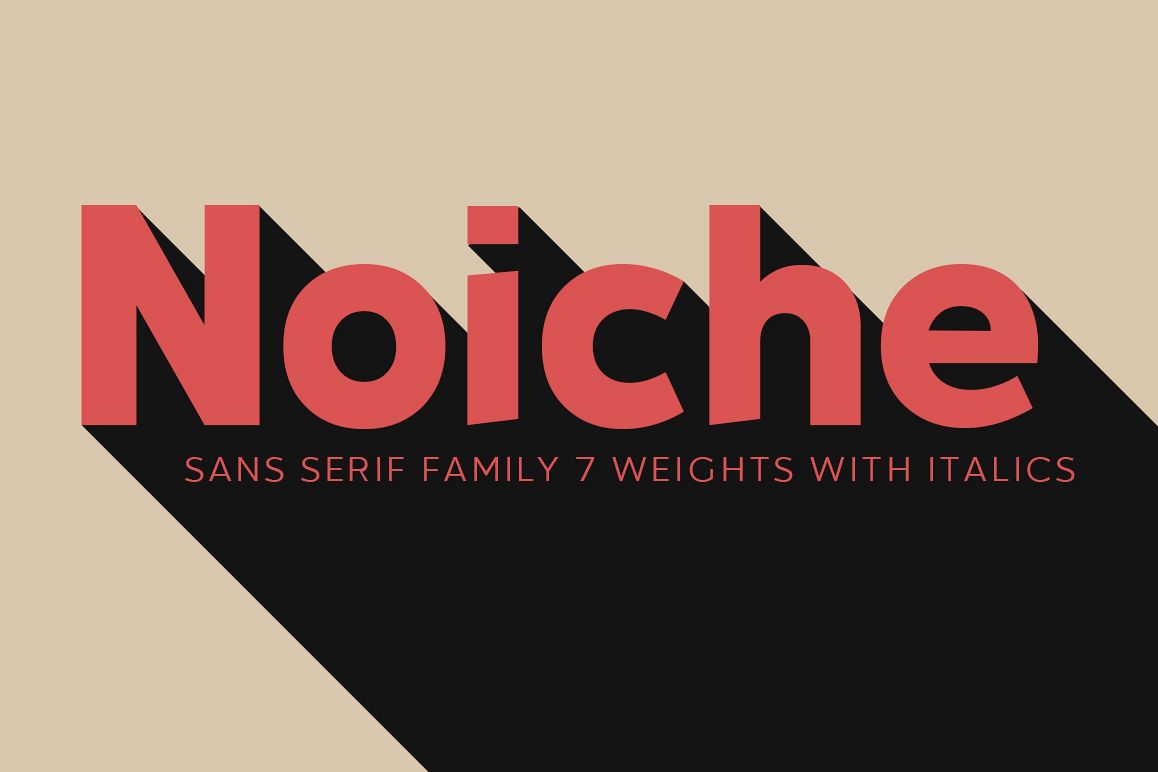
Noiche is a Black, Bold, Light, Medium, Regular, SemiBold & Thin.Noiche Italics is a Black Italic, Bold Italic, Light Italic, Medium Italic, Regular Italic, SemiBold Italic & Thin Italic.Noiche Sans Serif is perfectly suited to branding, logos, magazines, films, website, headlines, titles, captions, games, apps, posters, t-shirts and more.This font available: